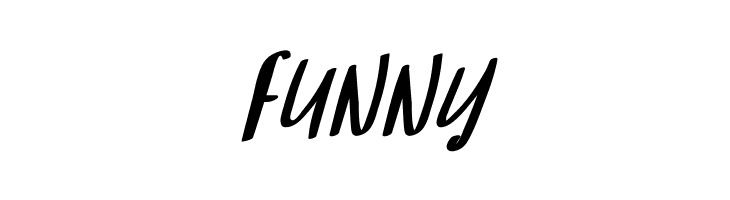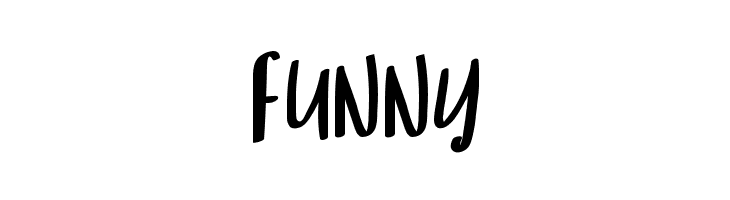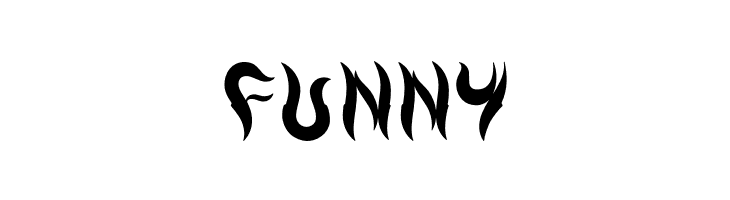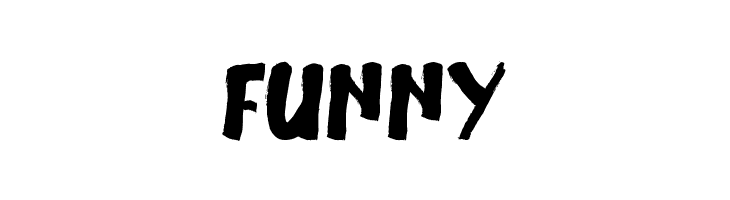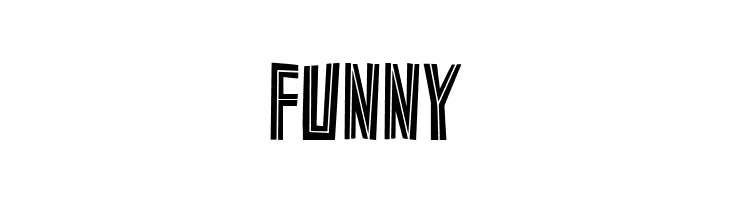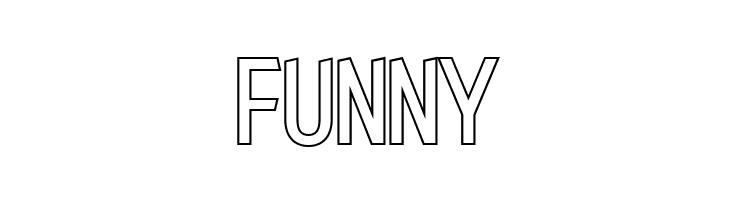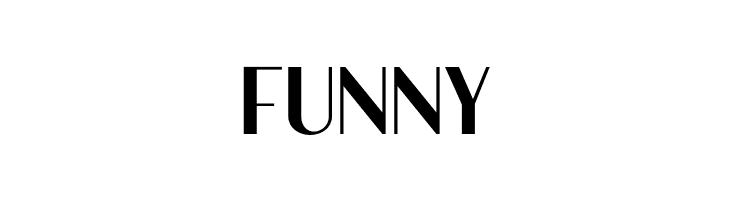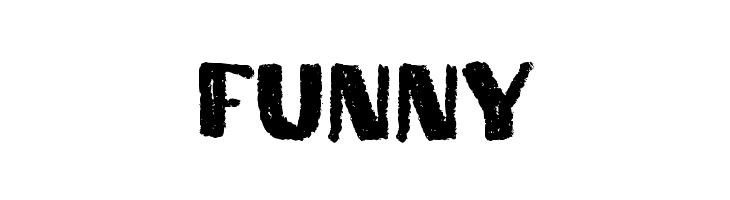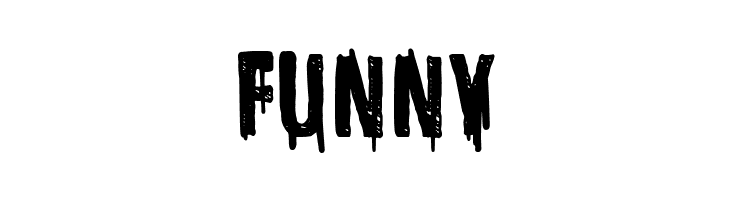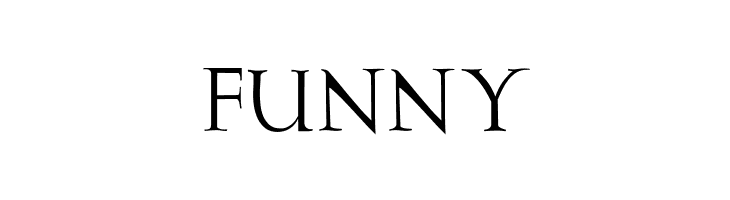
A bold, expressive handwritten font with fluid, dynamic strokes.
A bold, high-contrast font with a modern and elegant style.
A bold, modern font with geometric lines and uniform stroke width.
A refined serif font with elegant curves and a modern touch.
An elegant oblique serif font with a dynamic and sophisticated style.
A bold, textured font with a hand-painted, distressed look.
A bold, decorative font with an inline style, perfect for standout designs.
A bold, decorative font with rugged, hand-drawn outlines.
A modern, outlined font with geometric and balanced characters.
A modern sans-serif font with clean lines and excellent readability.
A rough, hand-drawn font with bold, textured characters.
A modern sans-serif font with a rounded, approachable design and excellent readability.
A bold, flame-inspired font with dynamic, fiery strokes.
A bold, gothic font with dripping, textured elements and a blackletter style.
A bold, playful, and hand-drawn font with rounded edges.
A bold, expressive handwritten font with brush-like strokes and dynamic flow.
A bold, textured, hand-painted style font with an expressive and dynamic appearance.
A bold, flame-themed decorative font perfect for dramatic headlines.
A bold, geometric decorative font with playful circular accents.
A bold, brush-style handwritten font with dynamic and playful characters.
A bold, italicized handwritten font with a dynamic and expressive style.
An elegant, flowing script font with graceful, cursive letterforms.
A rugged, distressed font with a hand-drawn, eroded appearance.
A bold, brush-style handwritten font with dynamic strokes.
A bold, distressed font with a grunge, textured style.
A playful, hand-drawn font with a rustic, wood-textured style.
A bold, brush-style font with thick, expressive strokes and a hand-painted look.
A bold, rugged, hand-drawn style with uneven edges.
A bold, textured font with a distressed, edgy style.
A bold, brush-style font with dynamic and lively strokes.
Distressed, dripping display font with a horror vibe.
A lively and elegant script font with flowing, cursive letterforms.
A lively and expressive handwritten font with dynamic strokes and artistic flair.